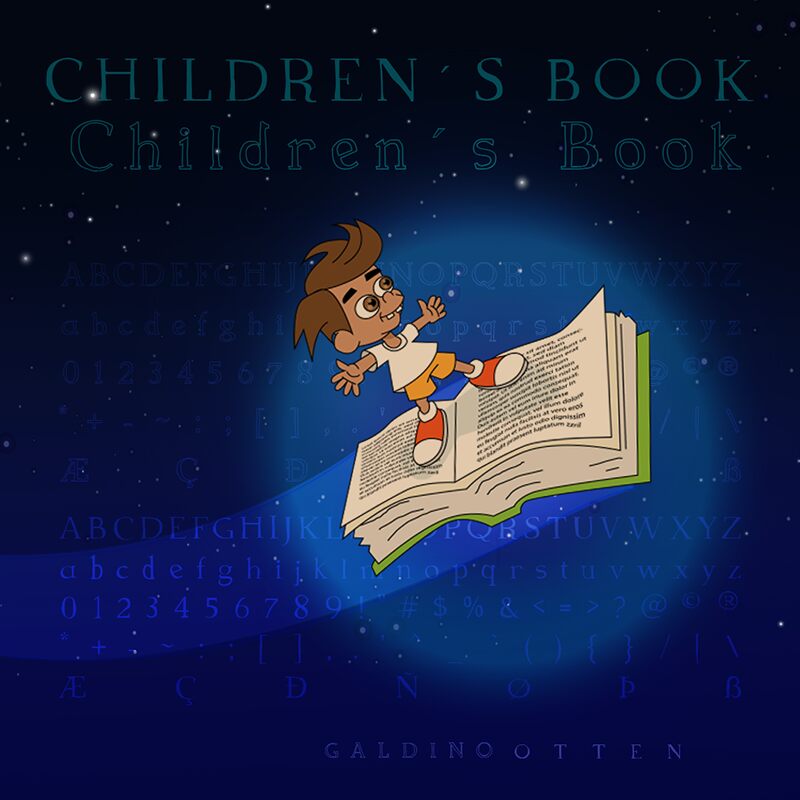
Children s Book Regular
Children's Book by Galdino Otten Fonts is a whimsical display typeface that captures the playful essence of storybook adventures.
With its cartoon-style lettering and semi-light weight, this font dances across pages, beckoning creative minds to explore its charming potential. Perfect for illustrations, educational materials, and branding that requires a touch of innocence, Children's Book ensures your project resonates with the wonder of childhood imagination.
Its versatility shines in both digital and print mediums, inviting designers to craft enchanting narratives that speak directly to the hearts of young audiences.